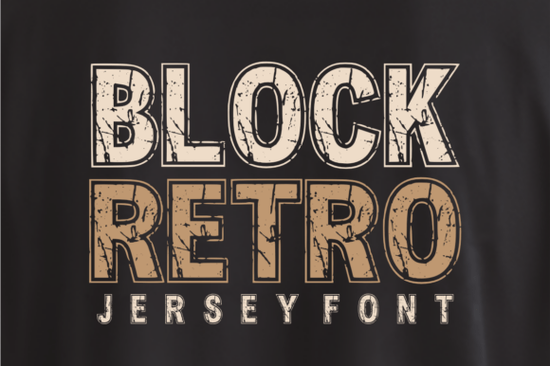
If you're creating sports-themed designs whether for team merch, event posters, or custom apparel you know how much the right font can set the tone. The Block Retro Font delivers that authentic athletic vibe with its bold, blocky letterforms and subtle distressed texture. Inspired by vintage collegiate jerseys, it’s built to stand out on tees, hoodies, banners, and more, while keeping your message clear even at a glance.
This typeface isn’t just about nostalgia it’s practical. Its high-contrast outlines and strong vertical strokes ensure legibility in both large-scale prints and smaller digital formats. Whether you’re designing for a local little league team or launching a fan gear shop online, Block Retro Font gives your work that “official team” feel without needing a design degree.
What makes this font work so well for sports branding?
Sports design thrives on energy, tradition, and instant recognition. Block Retro Font nails all three:
- Classic proportions: Wide, squared-off letters mimic real jersey numbering and lettering used in varsity sports since the mid-20th century.
- Subtle distressing: A light “printed-on-fabric” texture adds character without overwhelming the design perfect for mimicking screen-printed tees or embroidered patches.
- Built-in readability: Even when layered over busy backgrounds or scaled down for social media graphics, the font remains crisp and identifiable.
Unlike overly decorative display fonts that sacrifice function for flair, Block Retro Font balances style and utility. It’s especially effective when paired with bold team colors (think crimson, navy, or forest green) and oversized numbers a combo that instantly signals “sports” to your audience.
How does it compare to other bold display fonts?
If you’ve browsed Creative Fabrica’s collection, you’ve likely seen other standout options like the Lego Game Font, which leans playful and pixel-inspired, or the Teacher Outline Font, better suited for educational or handcrafted themes. Block Retro Font occupies a different niche: it’s purpose-built for athletics.
For even heavier impact, some designers might consider the Grunge Bold X Font, which offers more aggressive texture but that can sometimes reduce clarity. Similarly, the Extra Bold Font gives solid weight without the sport-specific detailing. And if you want something thick but rounded, the Thick Honey Font brings a softer, friendlier presence great for kids’ teams but less fitting for competitive branding.
Block Retro Font hits the sweet spot: rugged enough to feel authentic, clean enough to stay professional.
Who should use Block Retro Font?
This font shines for:
- Print-on-demand sellers creating custom fan apparel or gym merch
- Small sports clubs designing logos, rosters, or social media assets
- Event planners promoting tournaments, charity runs, or school spirit days
- Crafters making vinyl decals, tote bags, or sublimation mugs with team pride themes
Tips for getting the best results
To make the most of Block Retro Font:
- Avoid overcrowding. Let the letters breathe this font works best with ample spacing and minimal extra elements.
- Use uppercase consistently. The design is optimized for all-caps usage, just like real jerseys.
- Pair with simple sans-serifs. For supporting text (like dates or locations), choose a clean, neutral font to keep focus on the headline.
- Test print samples. The distressed effect may appear differently on cotton vs. polyester always do a mockup before bulk production.
And remember: while the texture adds vintage charm, don’t layer additional grunge effects on top. Less is more.